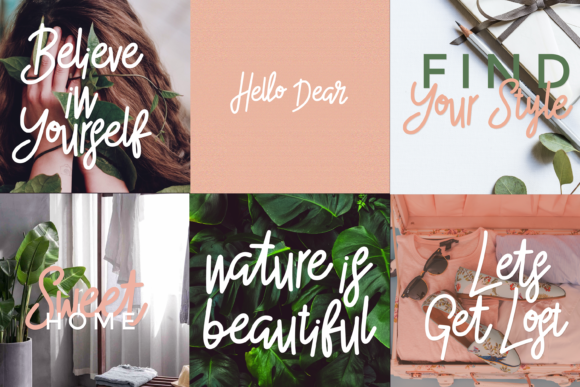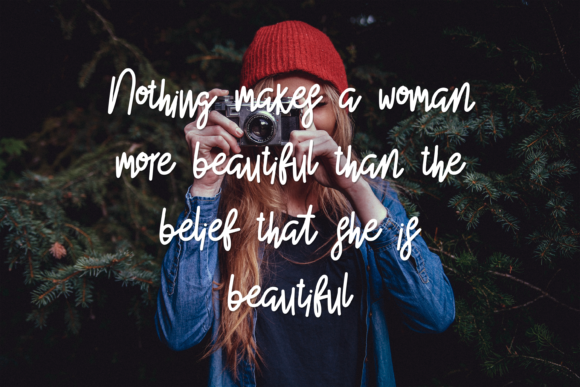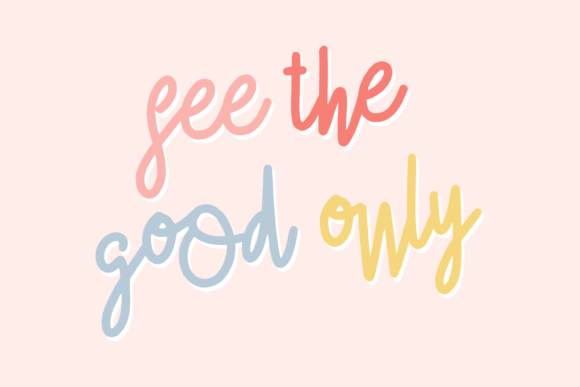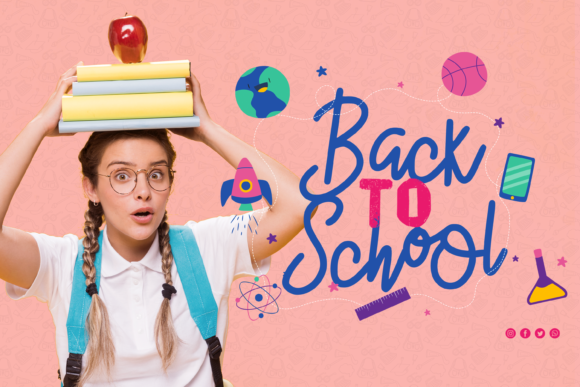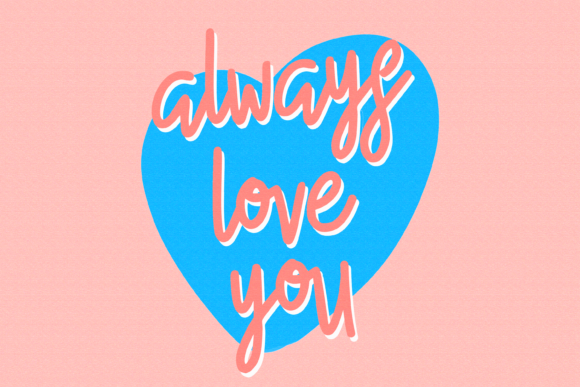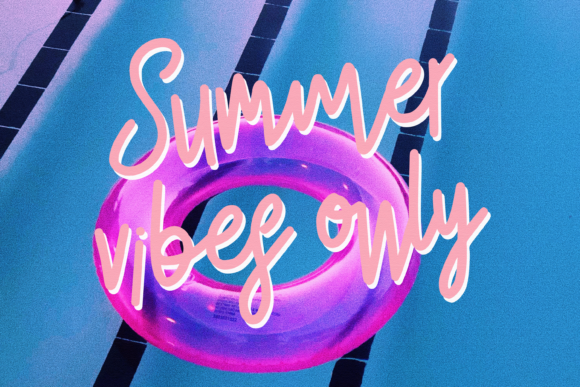
Introduction to Meiloly Font
As designers, we’ve all been there – staring at a blank canvas, searching for that perfect font to bring our creative vision to life. The moment of discovery, when the right font clicks into place, is a magical one. It’s the spark that ignites our imagination and sets our design ablaze with possibilities. For many designers, that spark comes in the form of the Meiloly Font – a sweet, brushed handwritten font that’s as versatile as it is beautiful.
With its high-quality design and transparent background, the Meiloly Font is a valuable resource for any graphic design project. Whether you’re crafting a logo, branding materials, or business cards, this font is sure to add a touch of elegance and sophistication to your work. And the best part? It’s available for free download, making it an accessible design resource for designers of all levels.
Key Features of Meiloly Font
- It comes in two font styles, with a transparent background to easily overlay on any design or image.
- This unique font features a distinctive and elegant design, perfect for adding a touch of sophistication to any creative project.
- Meiloly Font is fully editable, allowing designers to customize the font to suit their specific design needs.
- The font’s high-quality design and transparent background make it an excellent choice for designers looking for a reliable and versatile design resource.
Honest Review: Meiloly Font
I recently stumbled upon the Meiloly Font while searching for a design resource for a creative project, and I’m excited to share my thoughts on it.
What works well: ✨ The font has a unique and modern aesthetic that caught my attention. It’s perfect for designs that need a touch of sophistication and elegance. The high-quality design and transparent background make it easy to use in various creative projects.
However, there are some limitations: ⚠️ The font family is relatively small, and I wish there were more weights and styles to choose from. Additionally, the font might not be suitable for all types of designs, especially those that require a more playful or informal tone.
Overall, I’m impressed with the Meiloly Font, and I think it’s a great addition to any designer’s toolkit. While it may not be perfect, its unique design and high-quality construction make it a valuable resource for creative projects.
- Unique and modern aesthetic
- High-quality design and transparent background
- Customizable
- Relatively small font family
Tips for Getting the Most Out of Meiloly Font
When using Meiloly Font, remember to pair it with a transparent background to create a clean and modern look. Experiment with different font sizes and styles to find the perfect balance for your design. You can also use Meiloly Font in combination with other design elements, such as images and graphics, to create a visually appealing project.
Meiloly Font is a versatile design resource that can be used in a variety of creative projects, including logos, business cards, brochures, and presentations. Its high-quality design and transparent background make it an ideal choice for designers and non-designers alike.